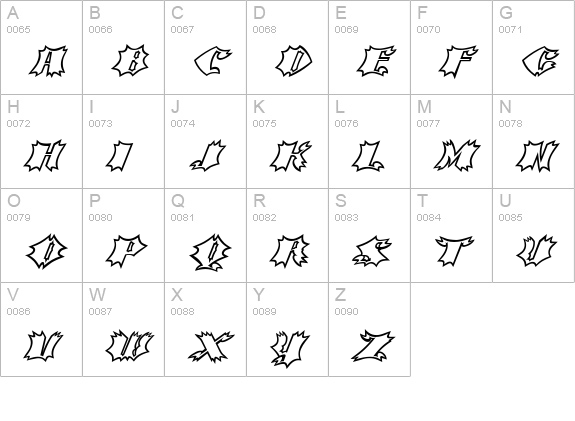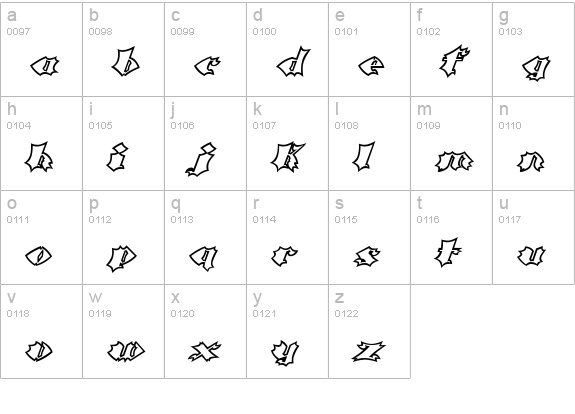
Crash Open font is a dynamic and eye-catching typeface that exudes a sense of energy and movement. With its bold and edgy design, this font is perfect for making a statement in headlines, posters, and branding materials. The unique and distinctive characters of Crash Open font are sure to capture attention and leave a lasting impression. What makes Crash Open font even more appealing is that it is available for free download at FontsMarket.com. This means that you can easily access and use this striking font in your design projects without any cost. Whether you're a professional designer or a hobbyist looking to add some flair to your creations, Crash Open font is a fantastic choice that won't break the bank. With its modern and versatile style, Crash Open font offers endless possibilities for creativity and expression. Give your designs a bold and dramatic touch with this stunning font that is both visually captivating and freely accessible. Download Crash Open font today and take your projects to the next level!